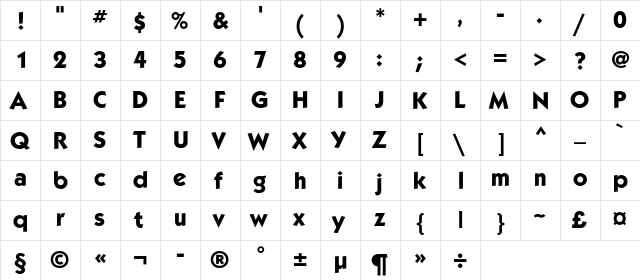
KabelC Bold Regular
Design Context for KabelC Bold Typeface
KabelC Bold offers clean, dependable letterforms without strong stylistic allegiance, making it a practical choice for designers who need flexibility. Its bold stroke weight gives it real presence on the page.